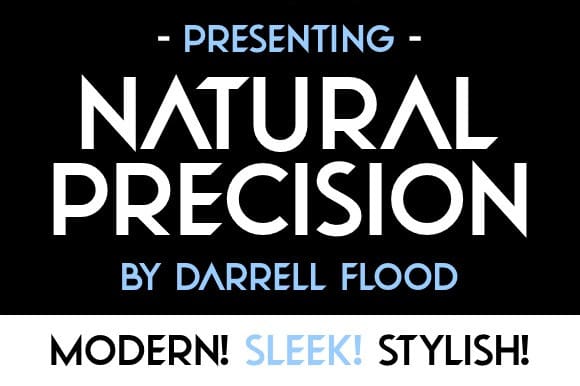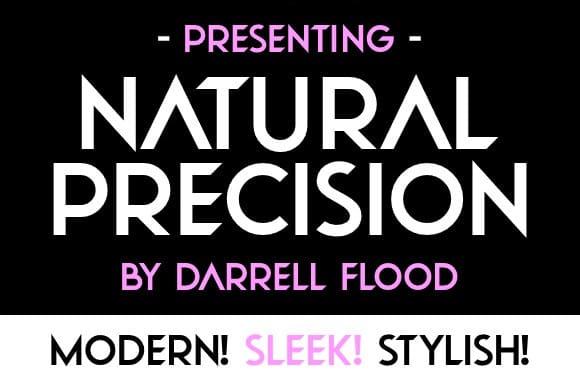
Natural Precision Font
Natural Precision Font a sleek, modern sans-serif in a crisp, luxurious style. Perfect for high tech themes, fashion titles and every eye catching use!